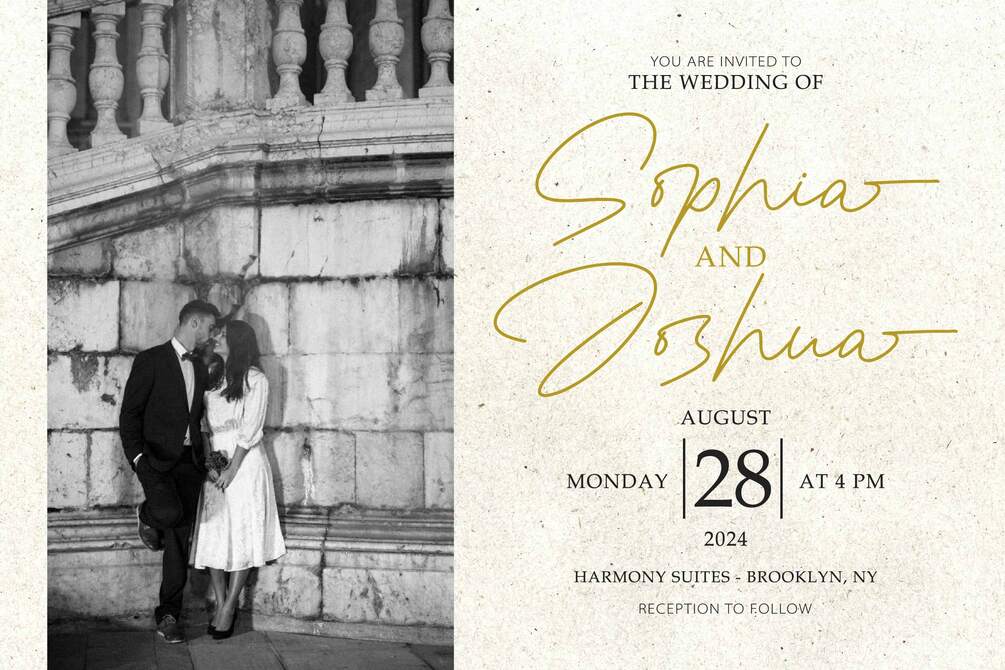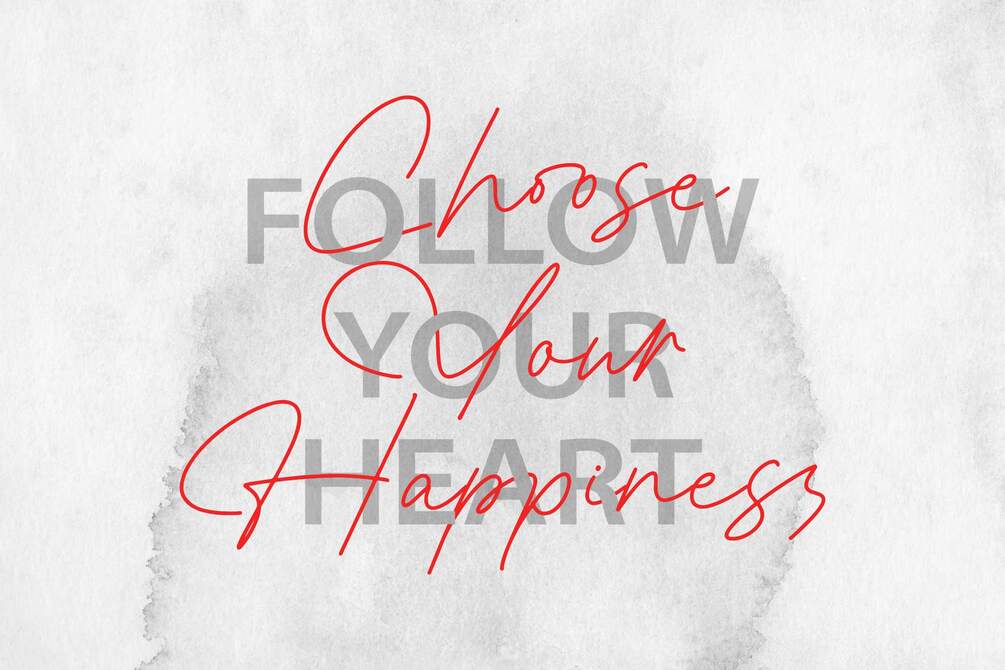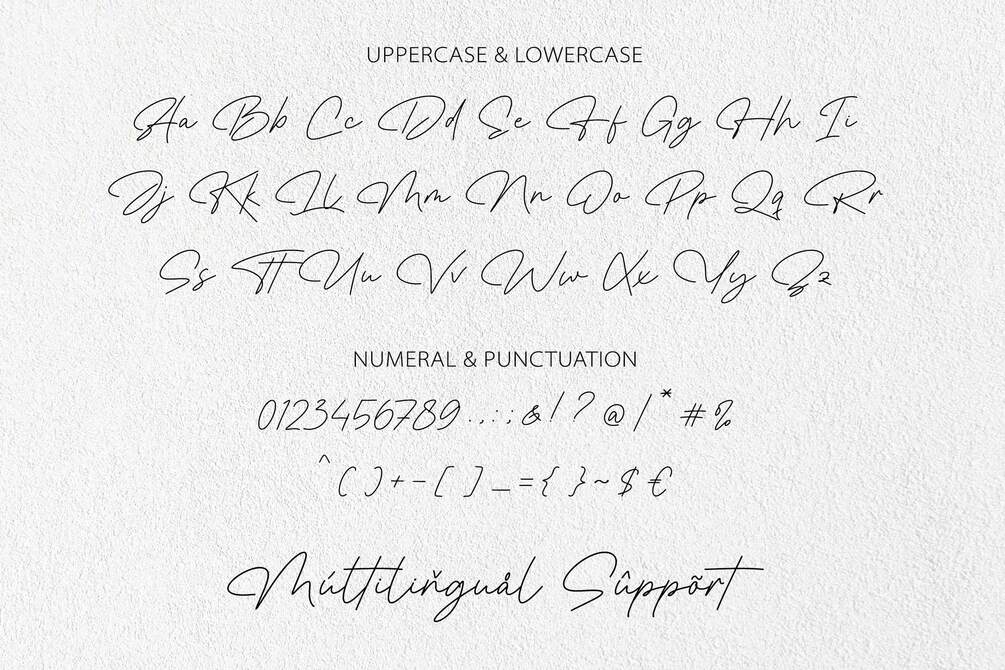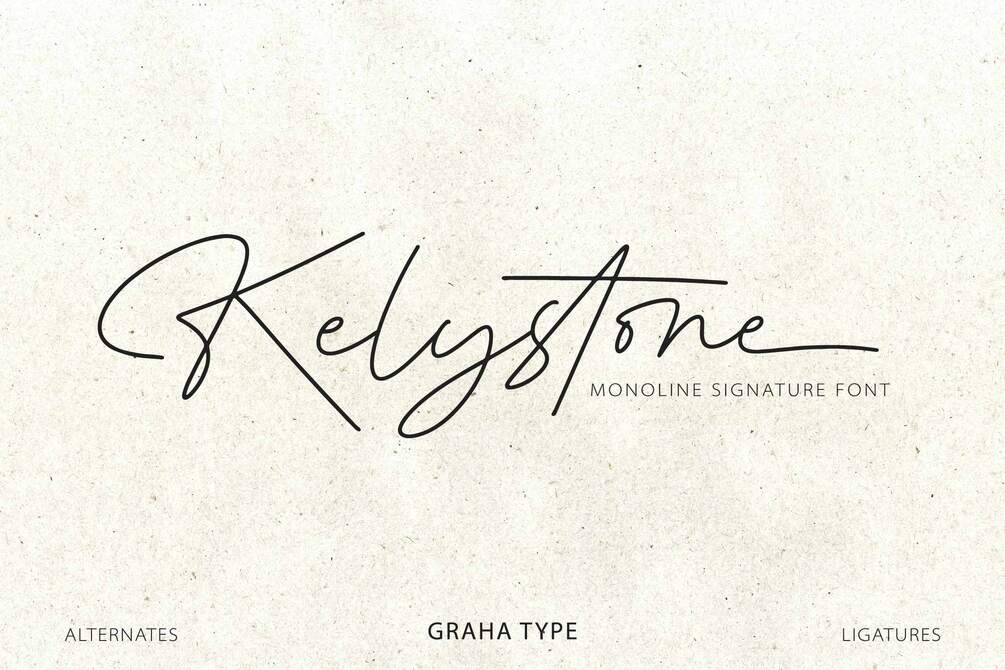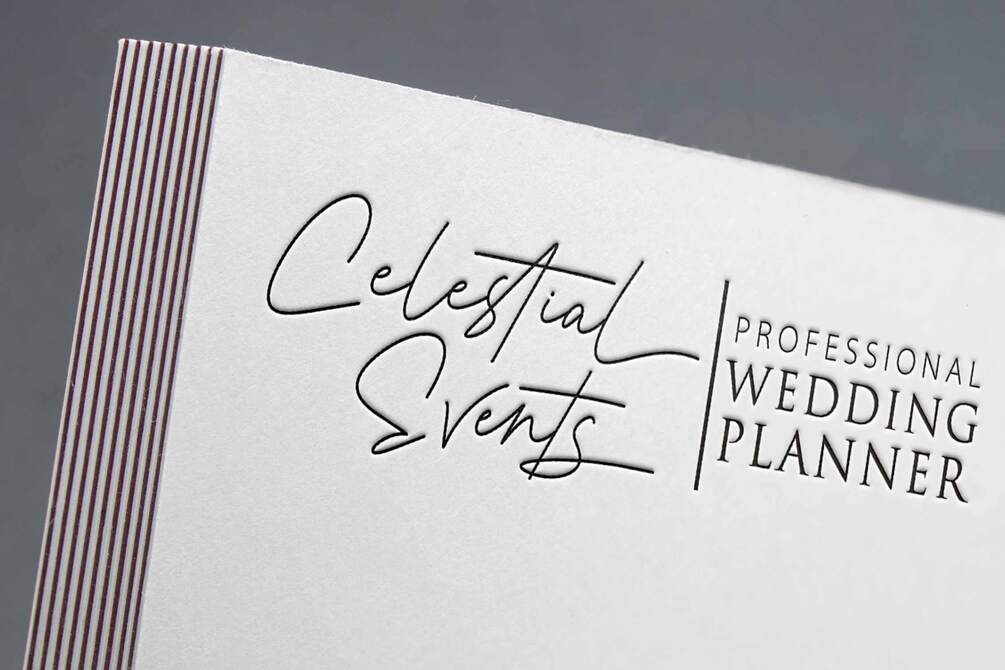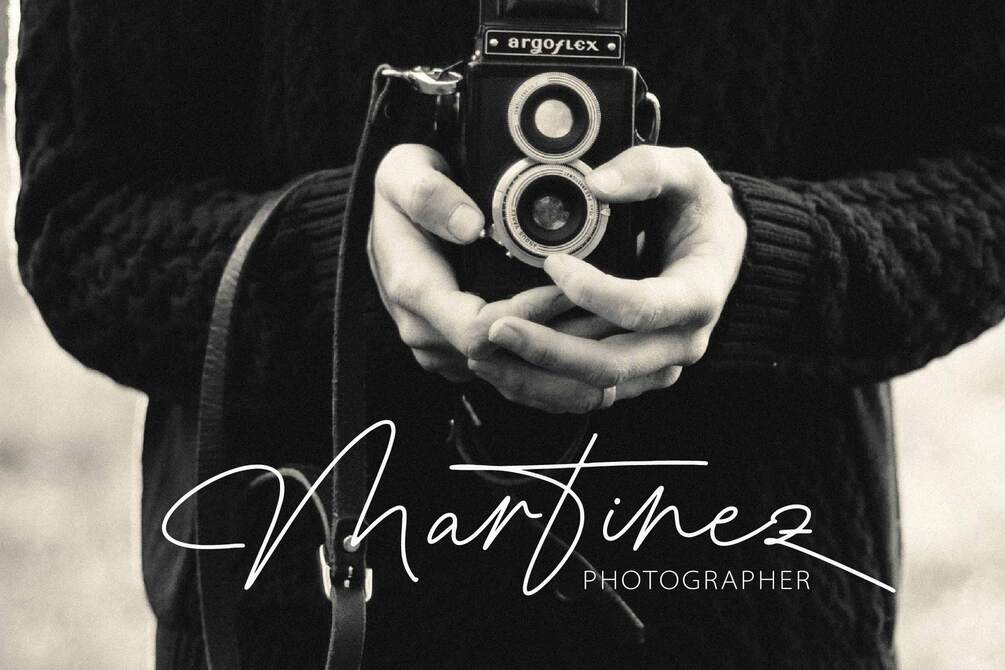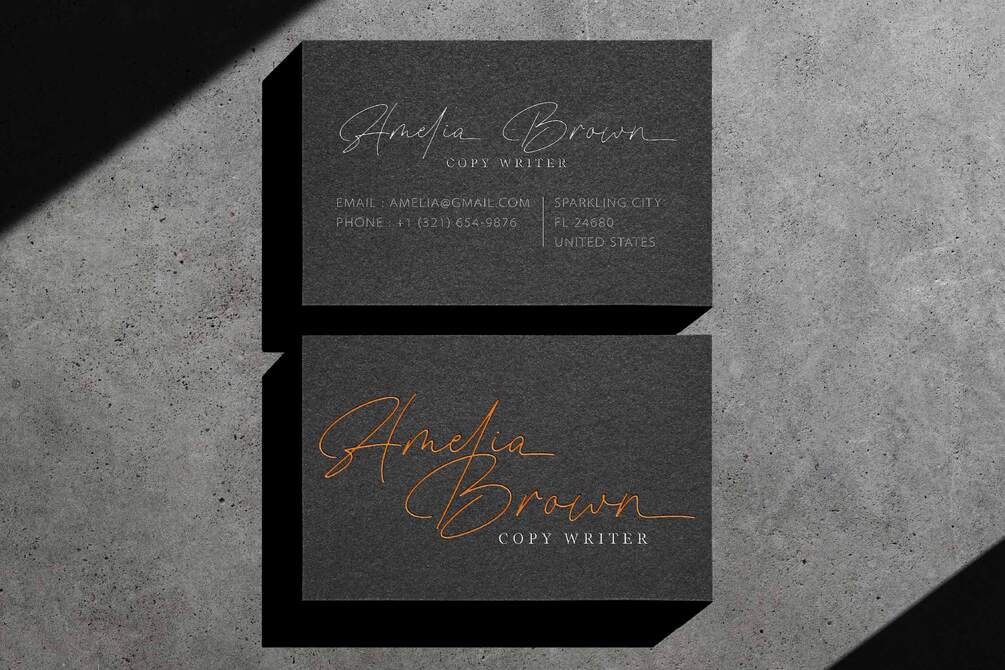
Kelystone - Monoline Signature Font
Kelystone is a monoline signature-style font with elegance touch. Ideal for design projects such as logos, invitations, branding, and more, this font enhances the quality of your work with its modern appeal. Featuring smooth and harmonious lines, Kelystone exudes exclusivity and professionalism, making it perfect for creating strong and captivating visual identities.
• Standard Glyphs
• Alternates and Ligatures
• Multilingual Support